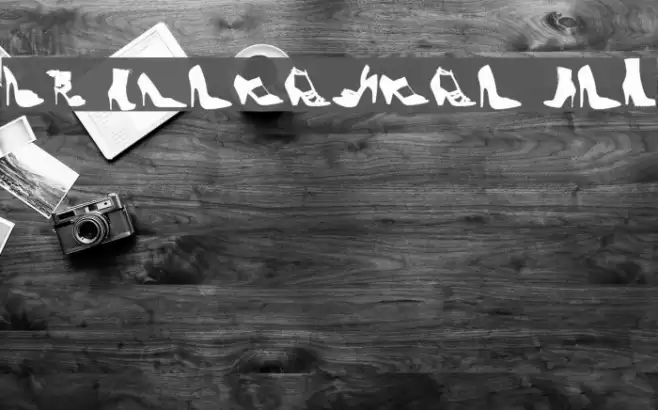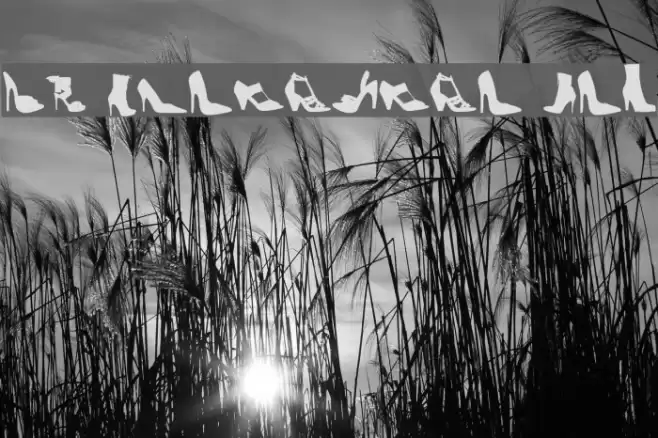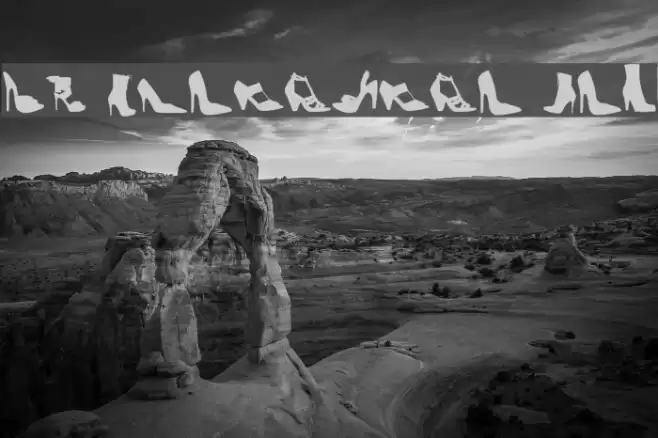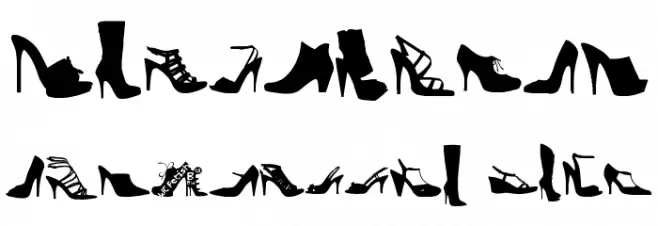
WC Fetishist Bta Font
WC Fetishist Bta Description
A playful decorative font where each character is represented by a unique silhouette of a high-heeled shoe or boot, creating a bold and whimsical visual effect. The glyphs are highly stylized and lack traditional letterforms, focusing instead on detailed shoe outlines.
A decorative font made entirely of high-heeled shoe silhouettes from Dingbats fonts.
- Proposed Projects: Fashion branding, event invitations, posters for shoe stores, themed parties, or any design needing a bold, fashion-forward statement.
- Overall Style: Decorative, Whimsical, Fashion-forward
- Use Case: Logos, Headlines, Posters, Event Invitations